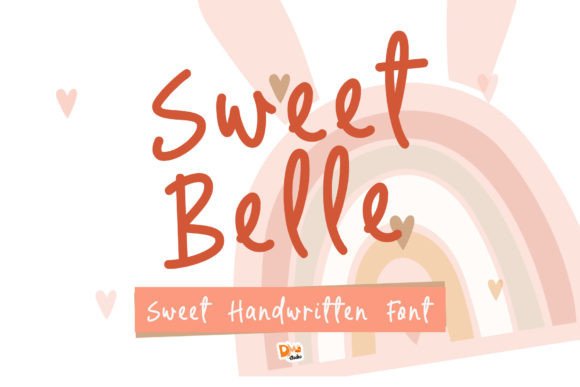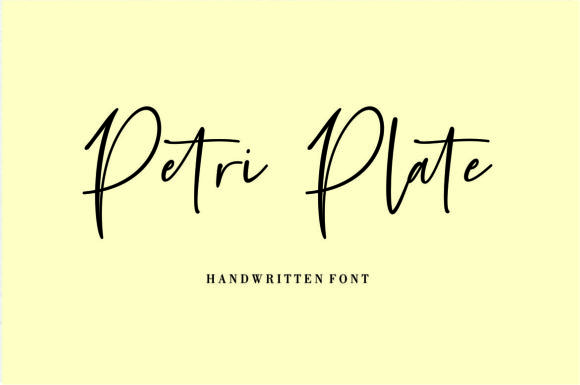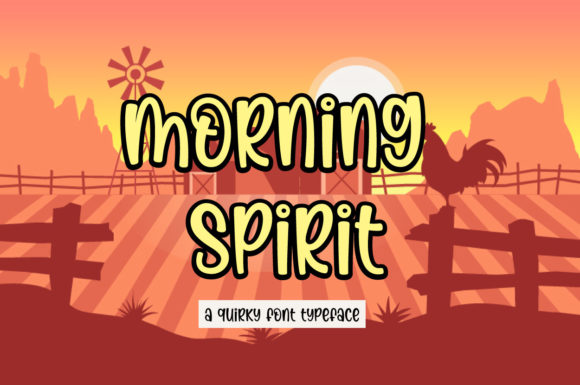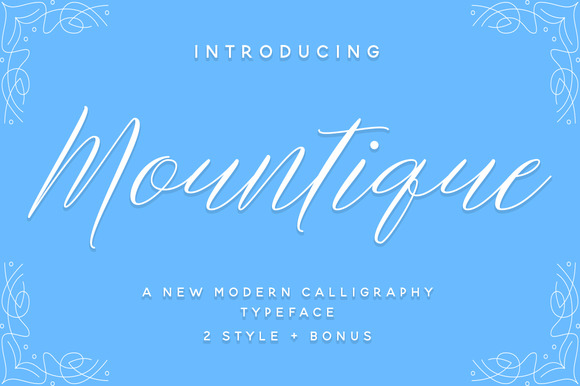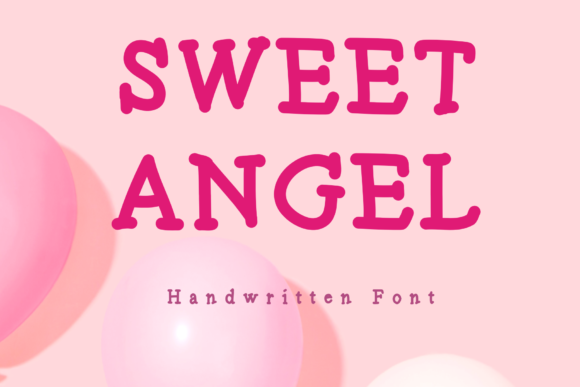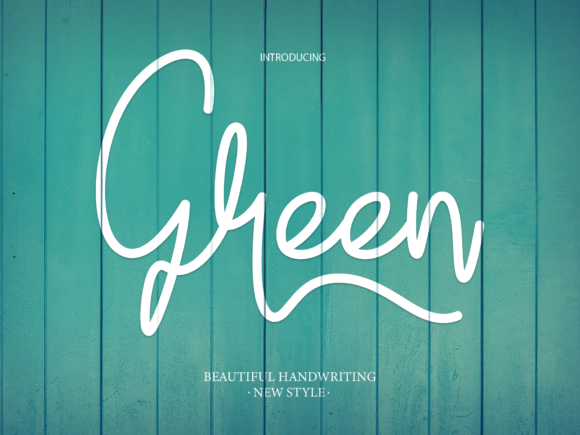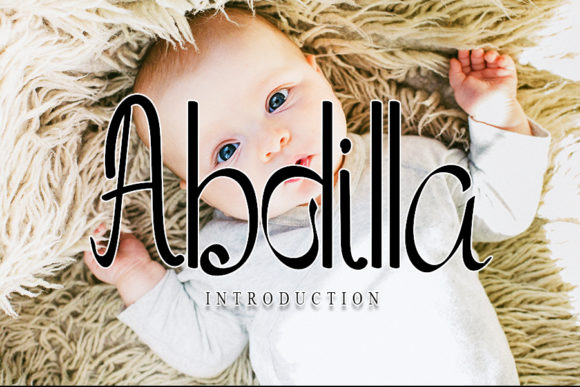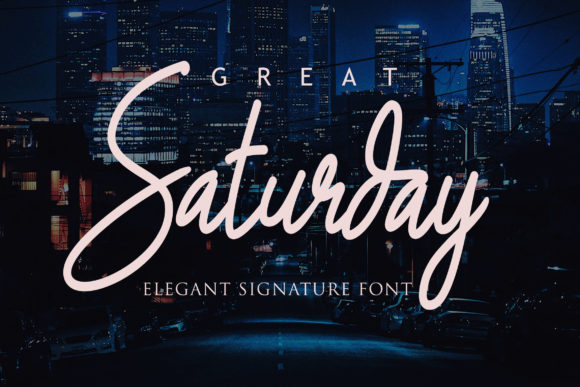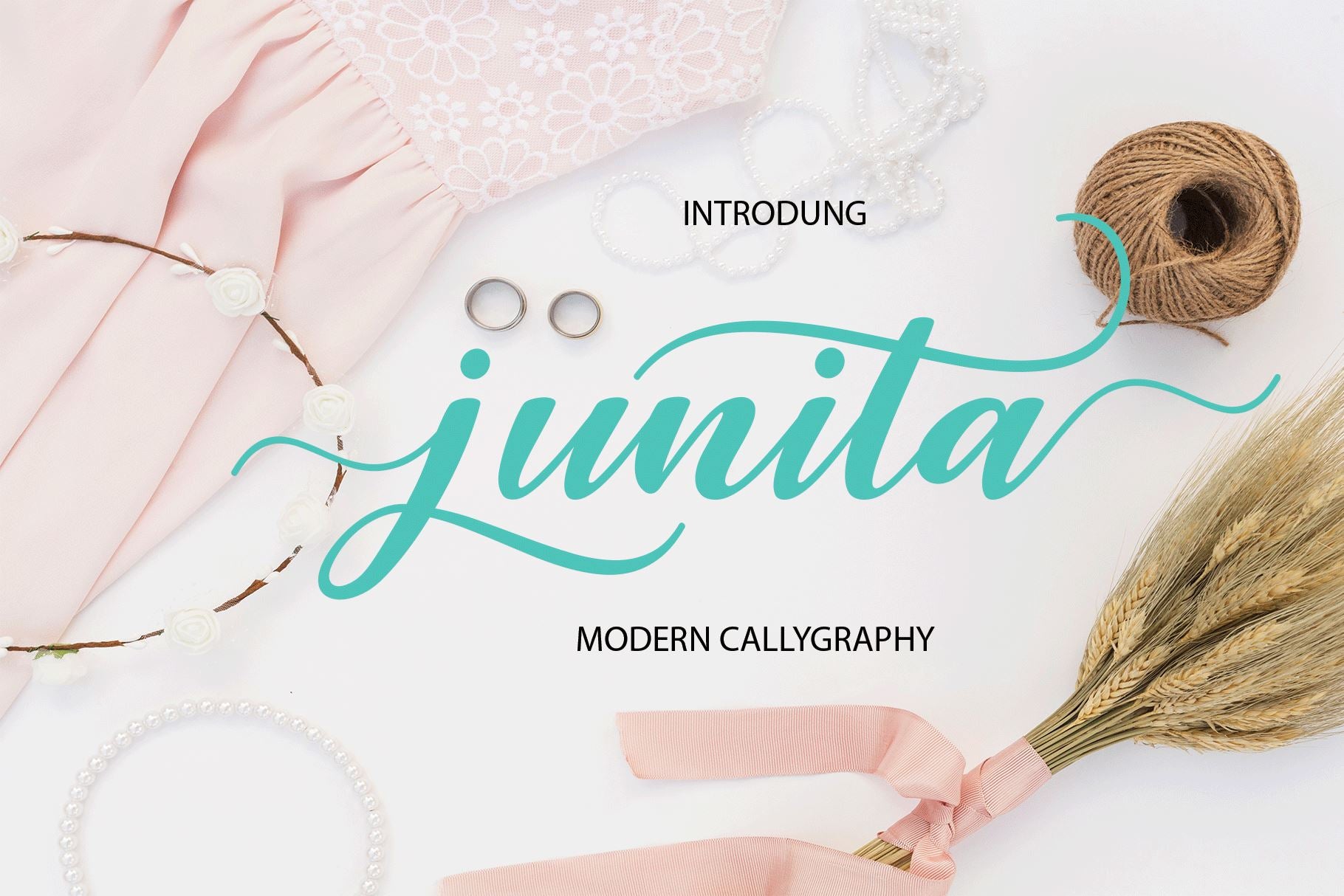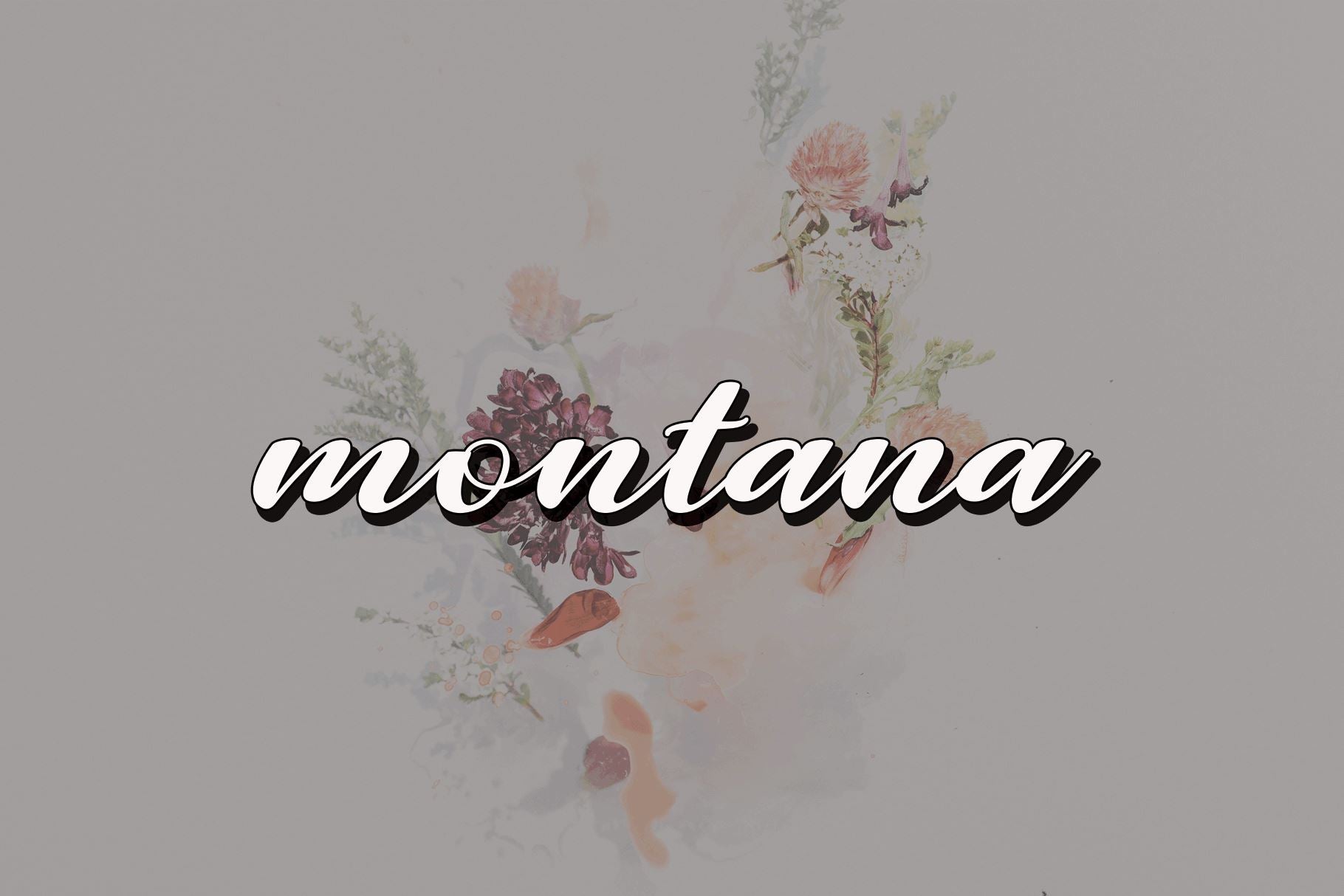
About Mini Bundle Vol 4
INTRODUCING Mini Bundle Modern Calligraphy This font is designed with handwriting, and has a modern and unique calligraphy form, its writing style is very natural. Mini Bundle has a very unique style of calligraphy, very suitable for use in modern design works.can be used for business cards and wedding. The Features of this fonts is: Standart ligatures Stylistic Alternates PUA Unicode (Private Use Areas) File font Include: Mini Bundle OTF Mini Bundle TTF Can be used for various purposes.such as headings, logos, wedding invitation, t-shirt, letterhead, lable, news, posters, badges etc. To enable the OpenType Stylistic alternates, you need a program that supports OpenType features such as Adobe Illustrator CS, Adobe Indesign & CorelDraw X6-X7.a font that made the hand by having the character up and down like a dancer. Mini Bundle has a very unique style of calligraphy, it is very suitable for use in the work of modern design.